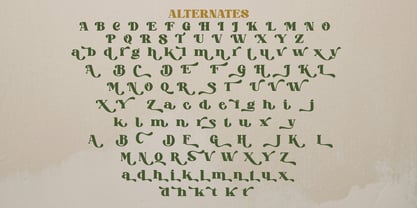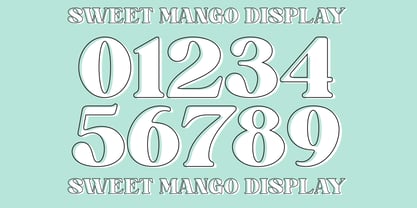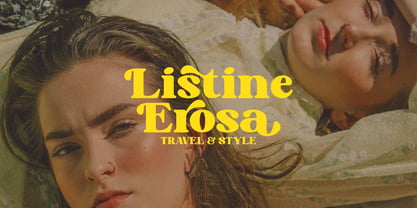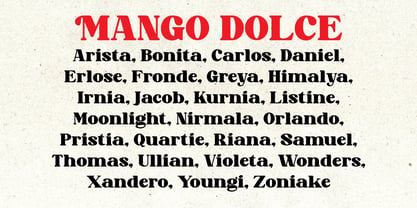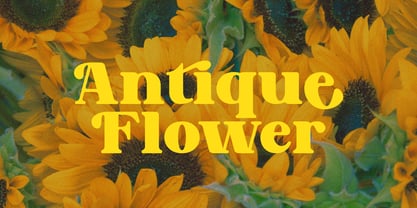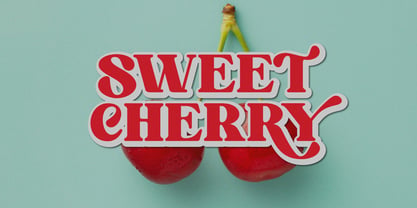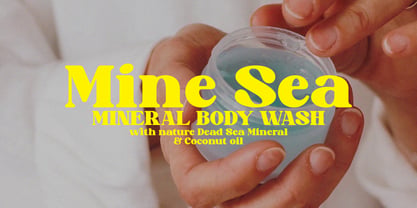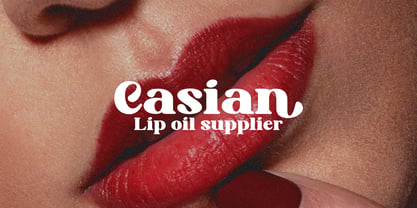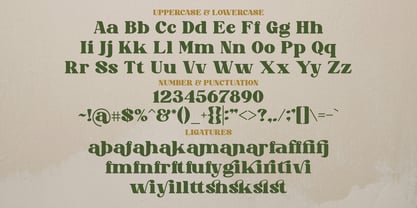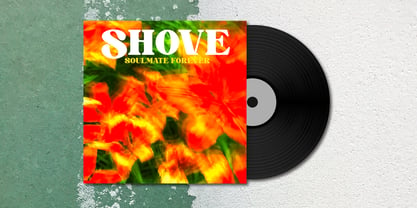
Mango Dolce Display
by Tebaltipis Studio
The Mango Dolce Display Font Family was designed by Dzulka Elfira and published by Tebaltipis Studio. Mango Dolce Display contains 1 styles. More about this family
Mango Dolce - Modern Bold Serif Font is a stylish font It has both modern and retro look. Comes with alternatives and ligatures, helps to create stunning logos, quotes, posts, blog posts. branding projects, magazine imagery, wedding invitations, and much more.